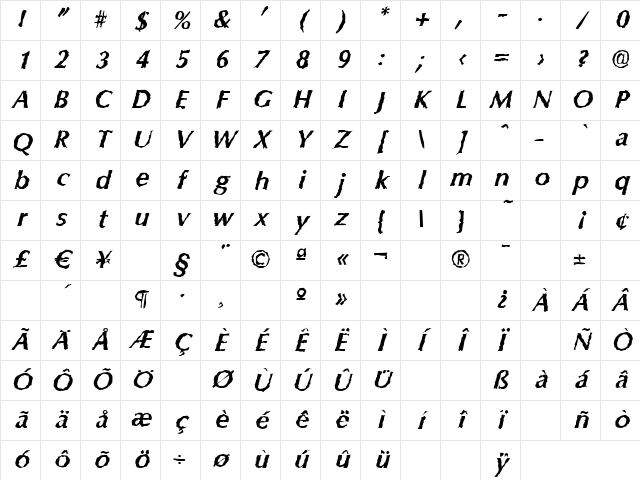
EricBeckerRandom BoldItalic
EricBeckerRandom Family
Design Context for EricBeckerRandom
EricBeckerRandom is a composed and adaptable typeface that performs quietly and consistently across a wide range of design contexts. The slanted form adds forward momentum and visual energy. Its bold stroke weight gives it real presence on the page.